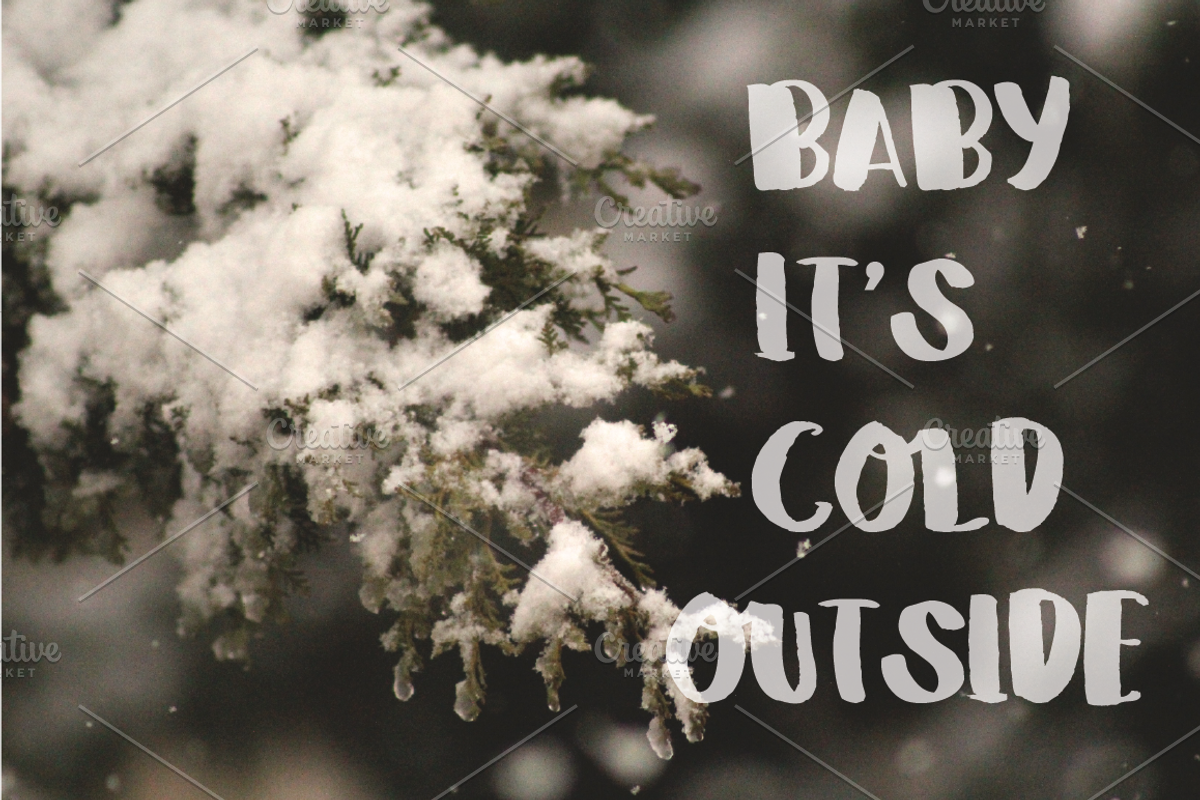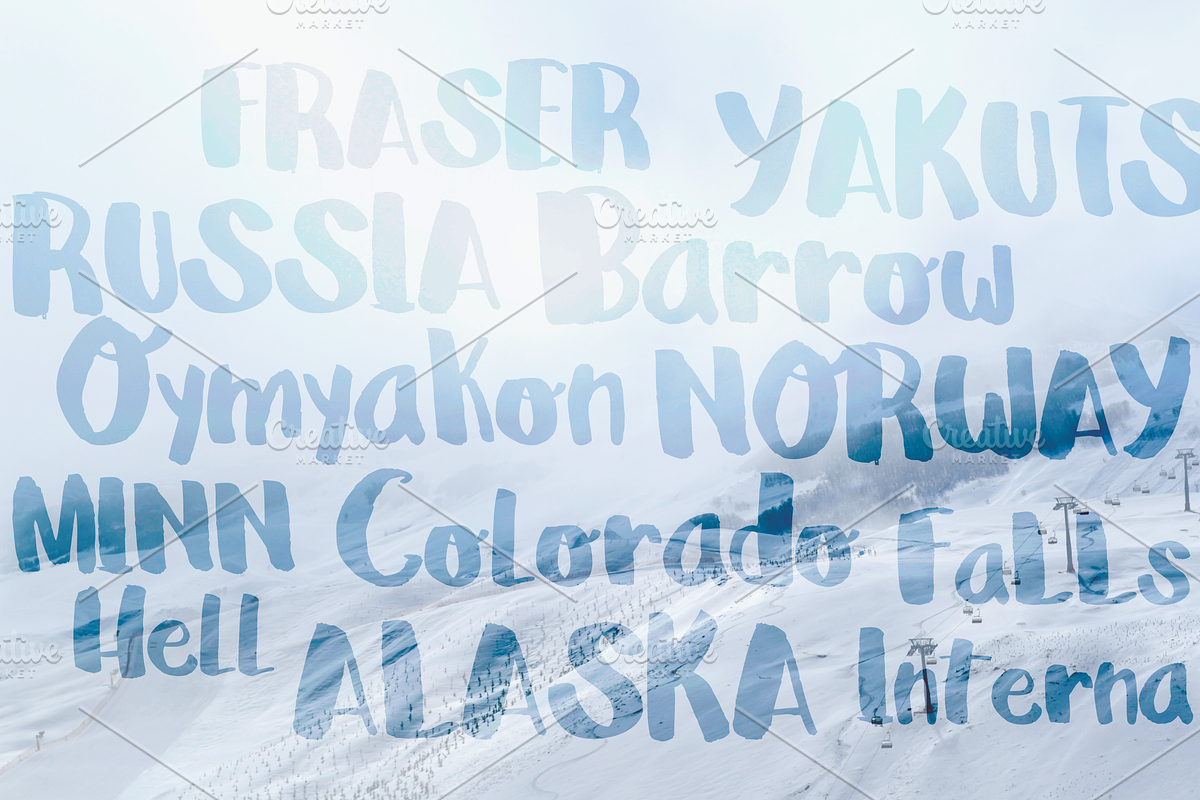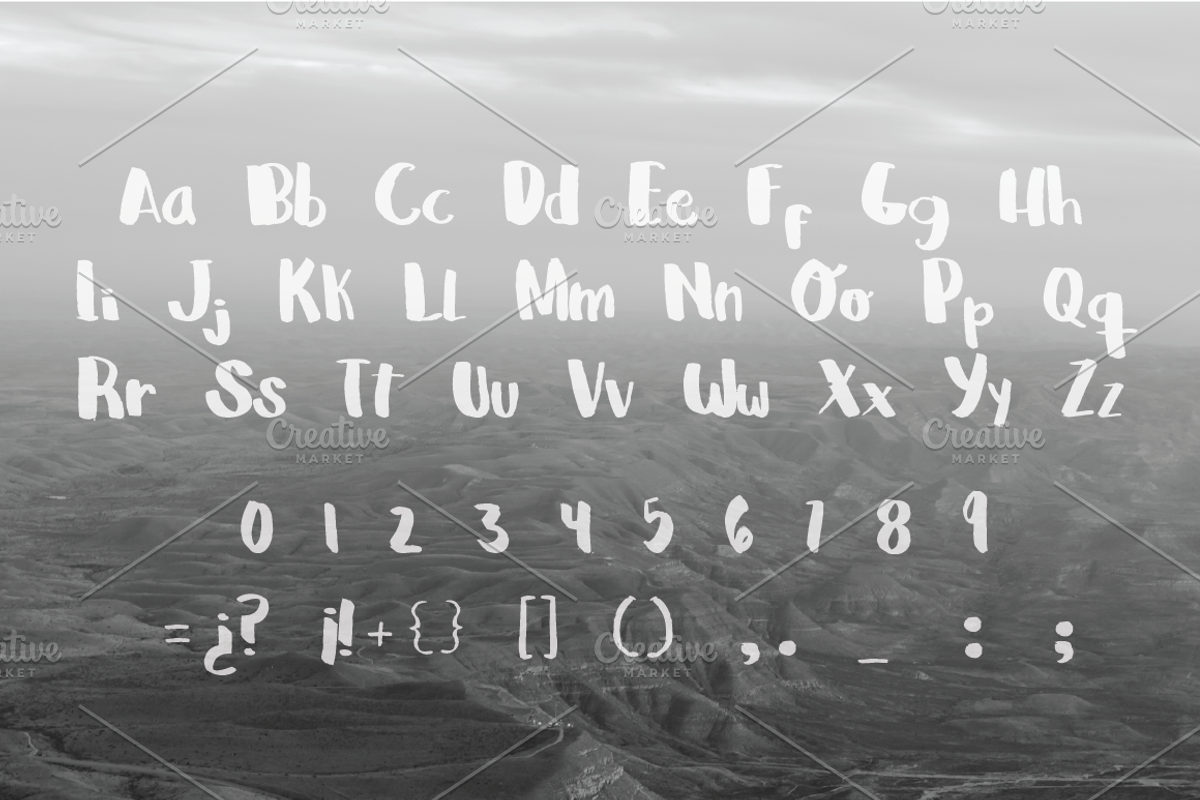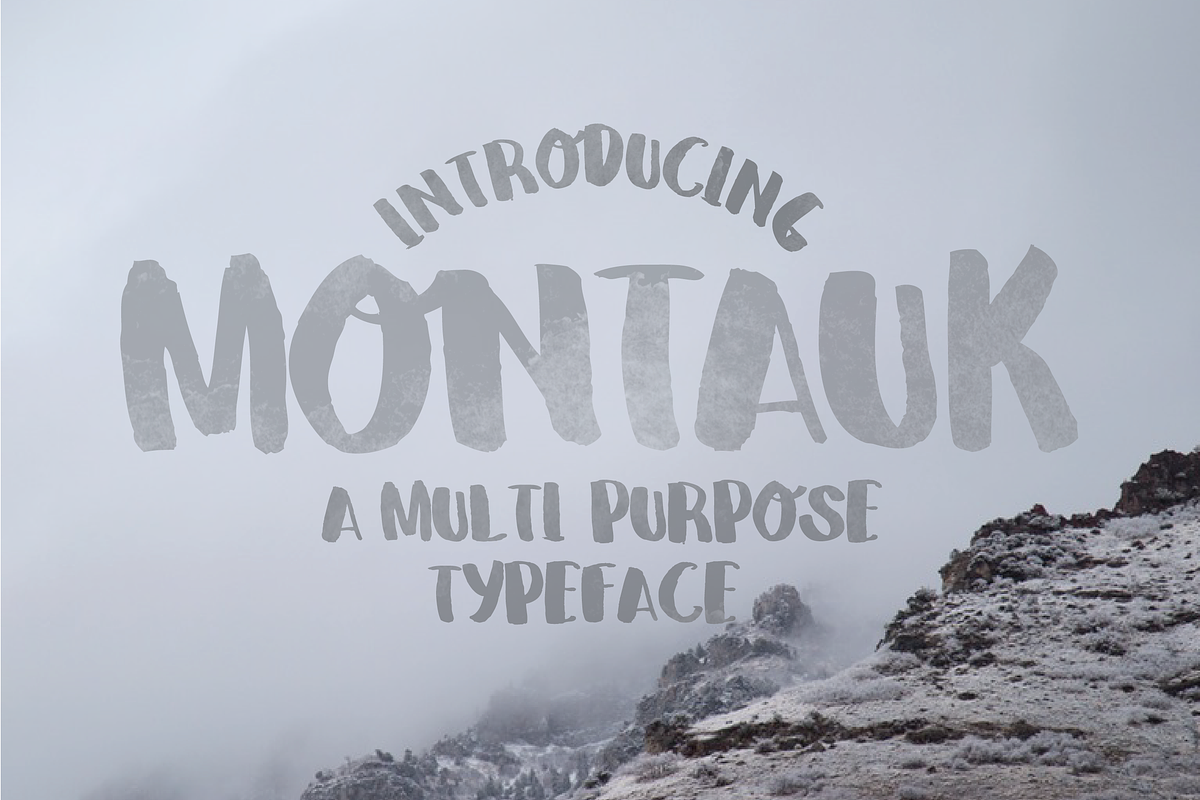
Montauk Font
Montauk Font by Lila Miller is a font selected for branding, posters, packaging, typography.
Why Montauk Font is worth a look
Montauk Font by Lila Miller fits naturally into Branding, posters, packaging, typography.